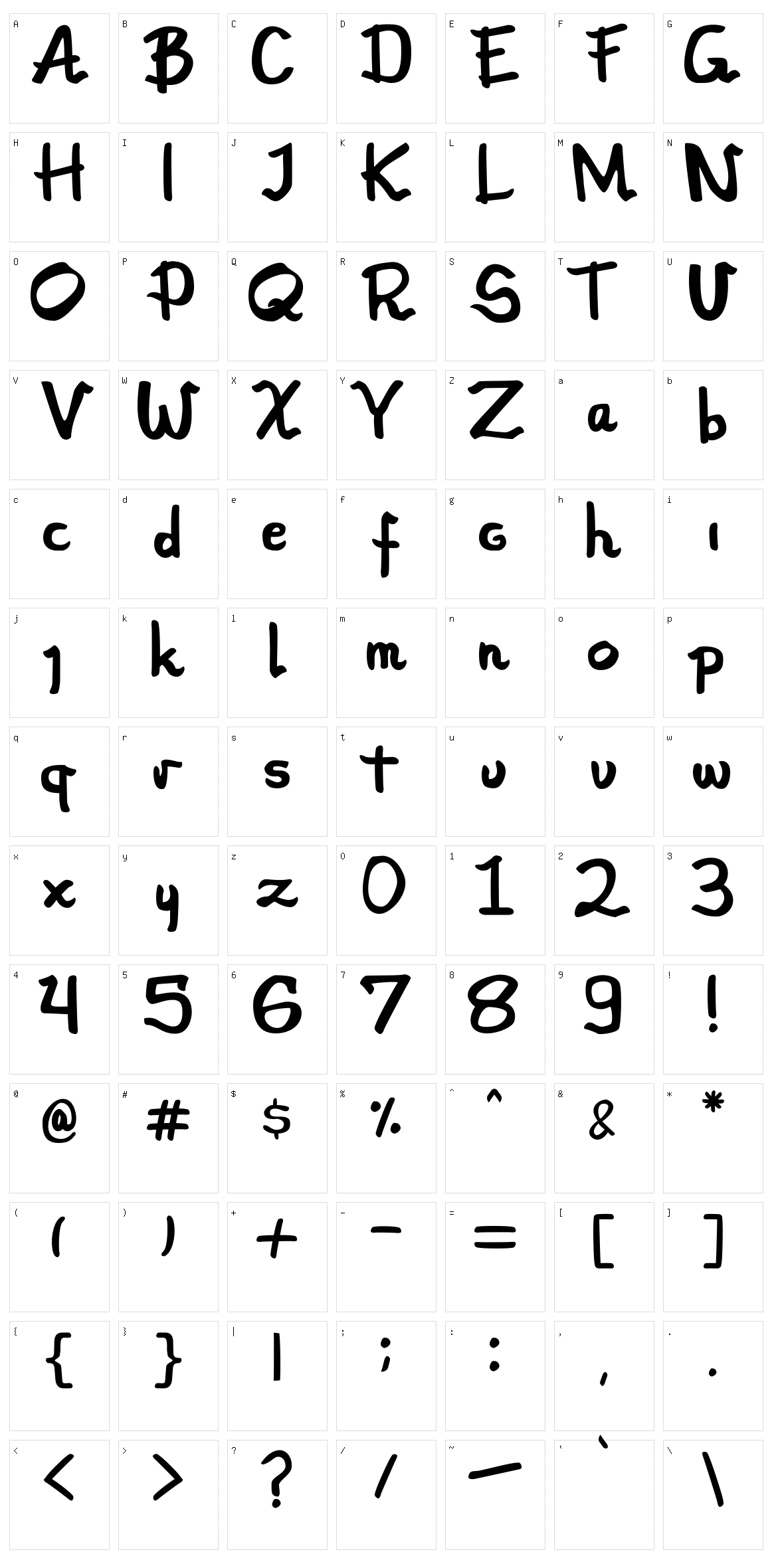
The free font Bounjour is carefully designed by Muhammad Zulkifly Suradin, showcasing a thoughtful balance of creativity and usability and falls under the Script font style. When you download the ZIP file, it contains only 34.76 KB of font files, making it lightweight and quick to download. Please review the license details below to understand permitted usage and distribution rights. If license information is not available, we recommend using this font for personal projects only or contacting the author directly for commercial usage permissions.